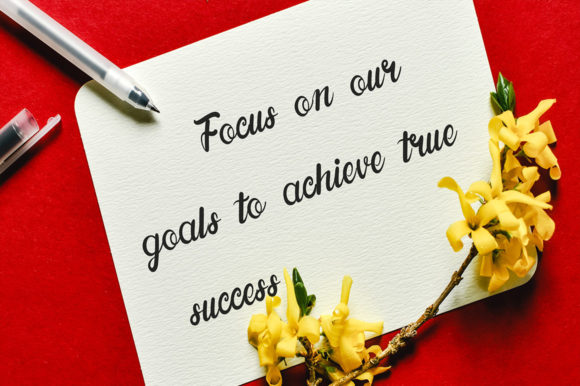
About The Relation Font
The Relation is a relaxed, all round and fashionable handwritten font. Cool and flowing, this font will turn each of your project ideas into real works of art. Have fun with this beautiful font and explore its endless variations.